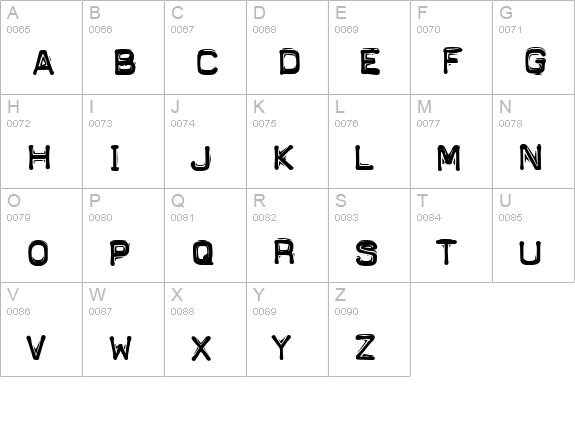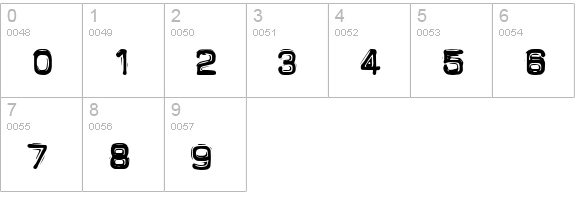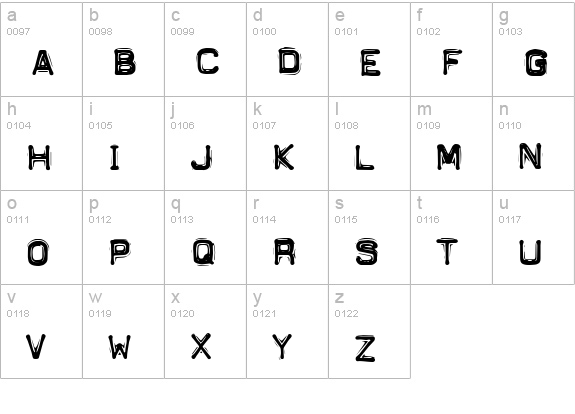
PFTapeomatic High Pressure Font Details
Introducing PFTapeomatic High Pressure font, a bold and dynamic typeface that exudes power and energy. With its sharp angles and strong lines, this font is perfect for making a statement and capturing attention. Whether you're designing for posters, headlines, or branding materials, PFTapeomatic High Pressure will give your projects a modern and edgy look. What's even better is that PFTapeomatic High Pressure font is completely free to download at FontsMarket.com. That's right, you can add this eye-catching font to your collection without any cost. Don't miss out on the opportunity to elevate your designs with the striking PFTapeomatic High Pressure font. Download it now and let your creativity shine!